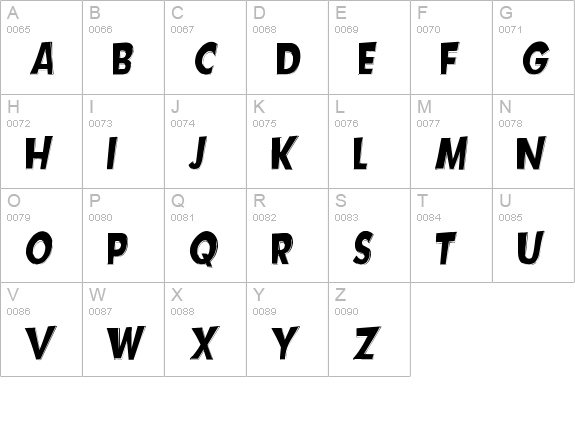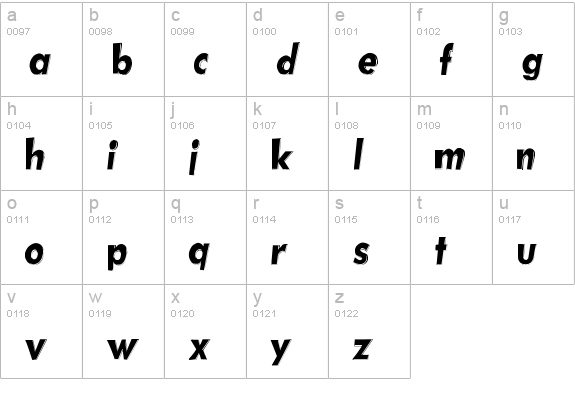
Hotplate (sRB) Font Details
Hotplate (sRB) font is a modern and stylish typeface that exudes a sense of energy and boldness. Its unique design features sharp edges and geometric shapes, giving it a sleek and contemporary look. The font is perfect for creating eye-catching headlines, posters, logos, and other design projects that require a touch of edginess. What sets Hotplate (sRB) font apart is that it is available for free download at FontsMarket.com. This means that you can access this striking font and use it in your projects without any cost. Whether you're a professional designer looking for a fresh font to add to your collection or a hobbyist experimenting with typography, Hotplate (sRB) font is a fantastic choice that won't break the bank. Download it today and elevate your designs with its dynamic and captivating style.